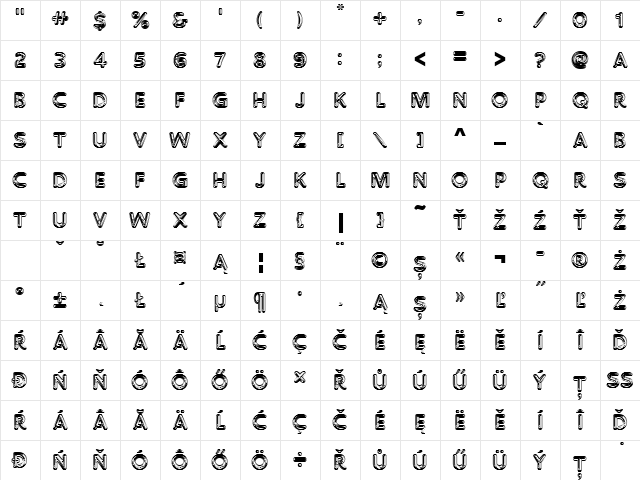
Complete ChromiumOneDEE Regular glyph index. Displaying only characters natively supported by ChromiumOneDEE Regular font.
ChromiumOneDEE is a composed and adaptable typeface that performs quietly and consistently across a wide range of design contexts.